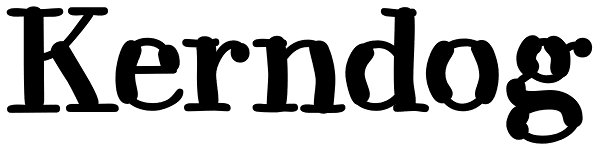
Kerndog
Thick, ballooned chunks, strung together by thinner sections, Kerndog looks as if it's been constructed from flexible corn dogs. Perfect for kid stuff and unusual advertising needs. Kerndog is legible at most sizes, but best when used large so the...